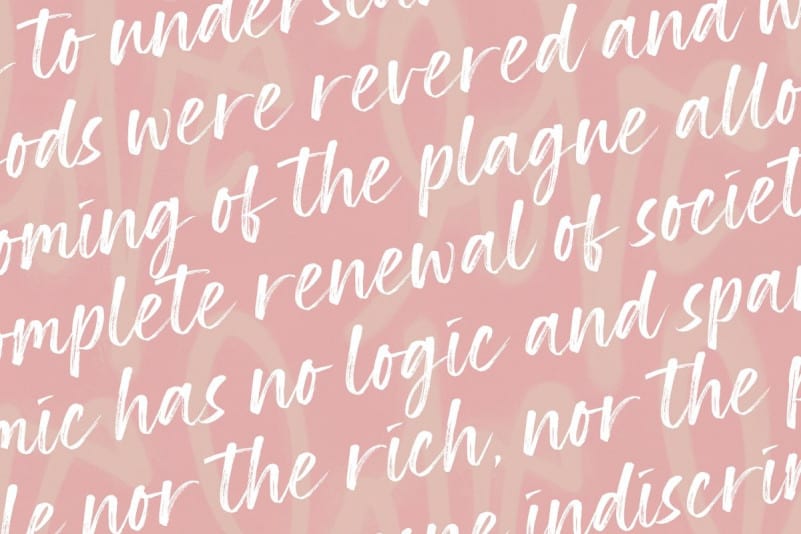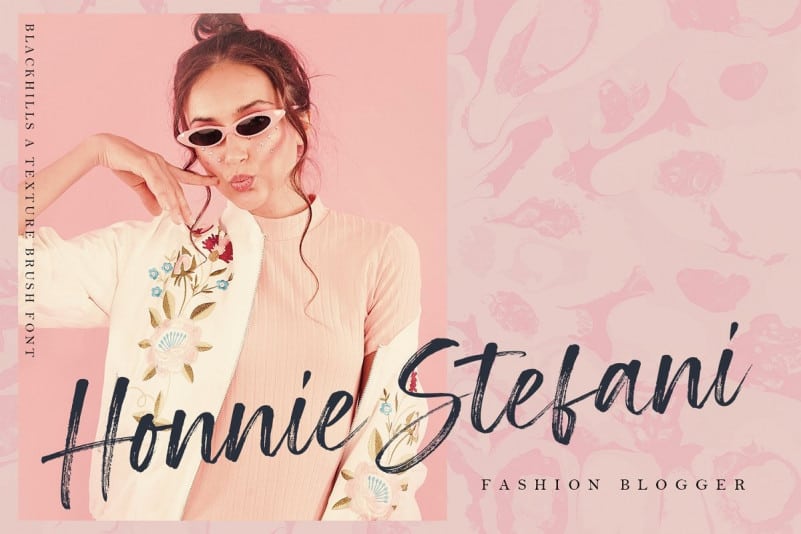
Blackhills – Textured Brush Font
A texture brush font. This is a unique hand made brush font created using realistic brush strokes including inconsistent textures & letter-forms to give you the same look & feel as a real brush would! Introducing Blackhills Font. This font is suitable for various projects, such as invitations, stationery, social media, logos, weddings, branding, graphic design, with the addition of a few swashes. and can be combined with various types of serif fonts to perfect the project you want to work on.